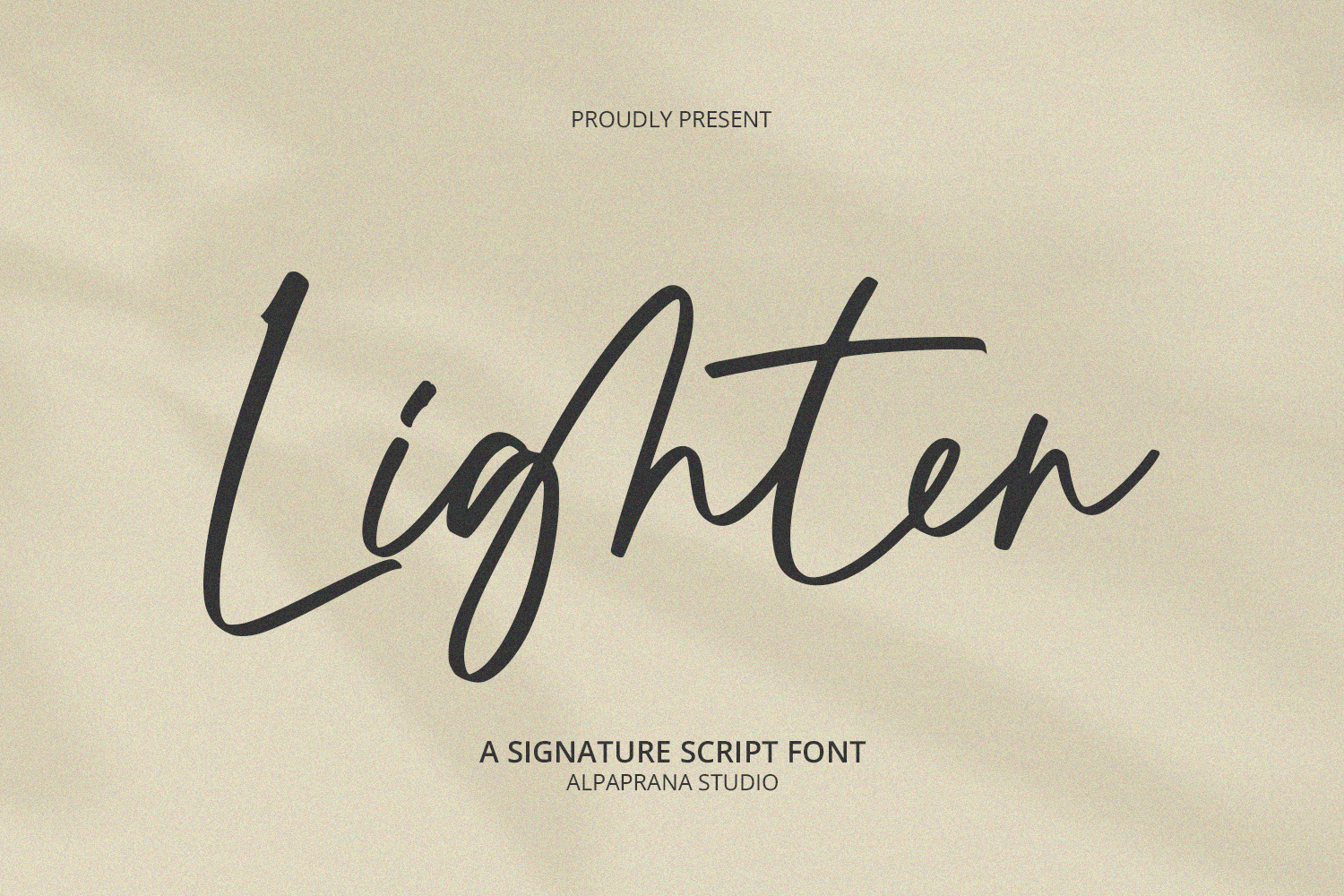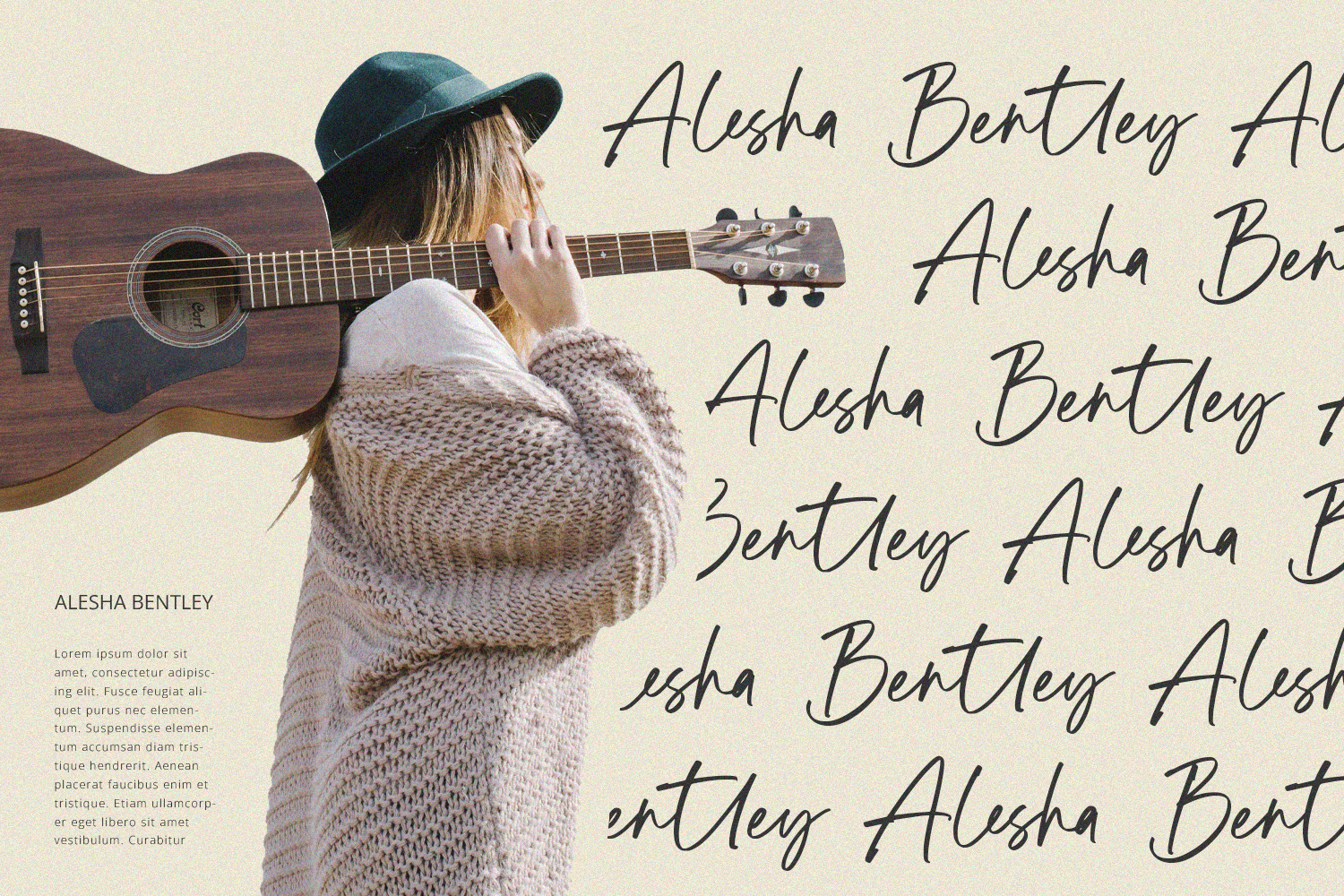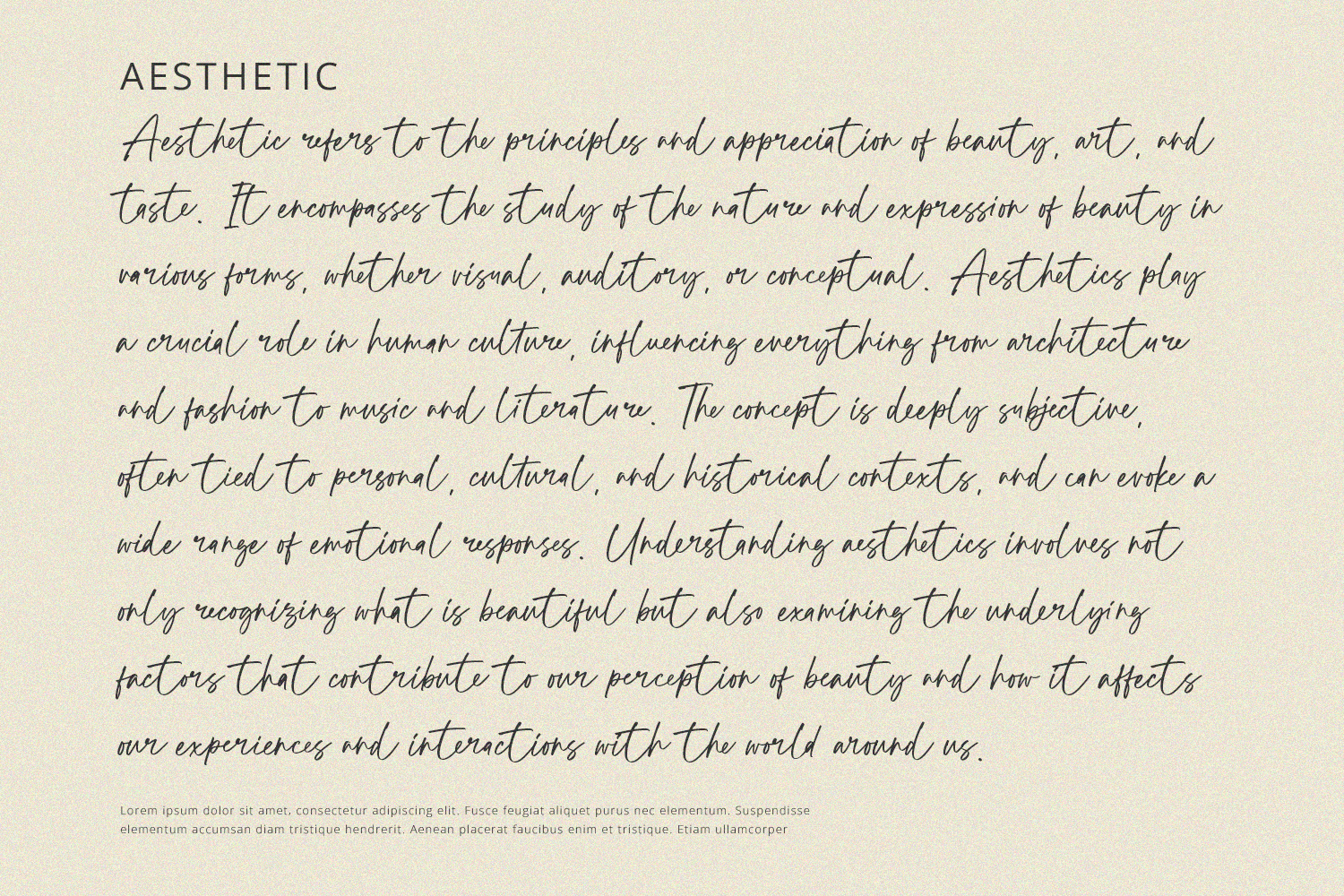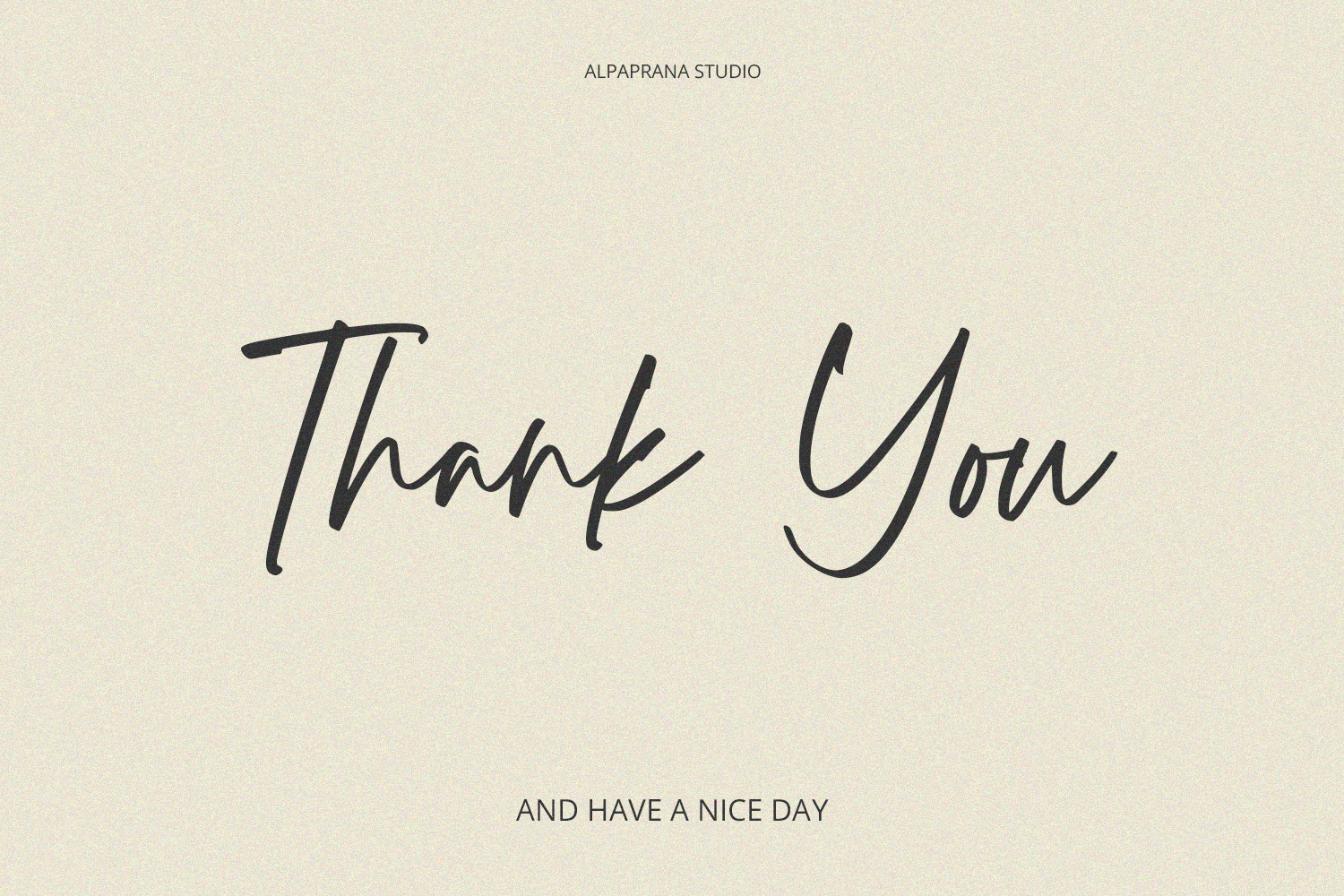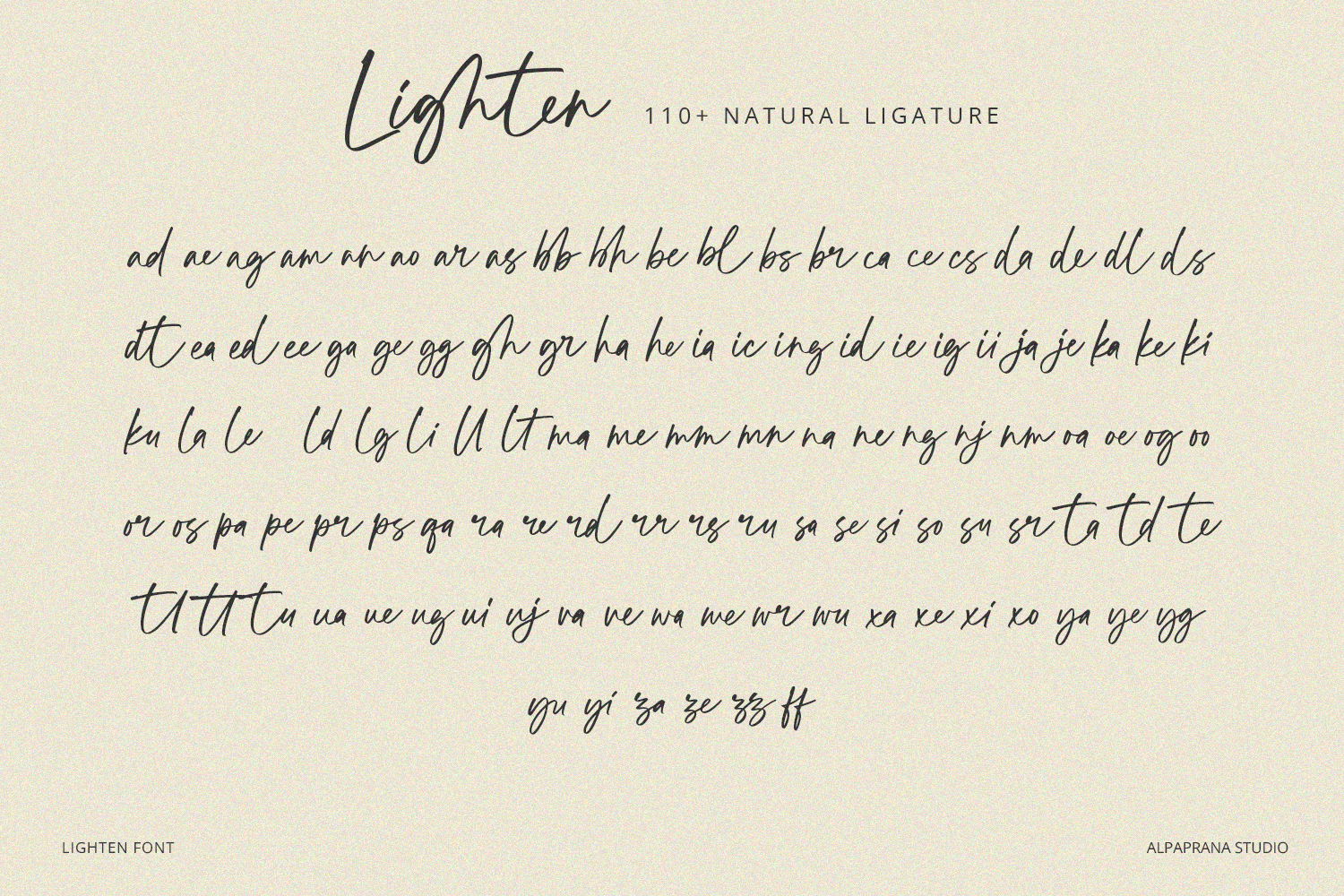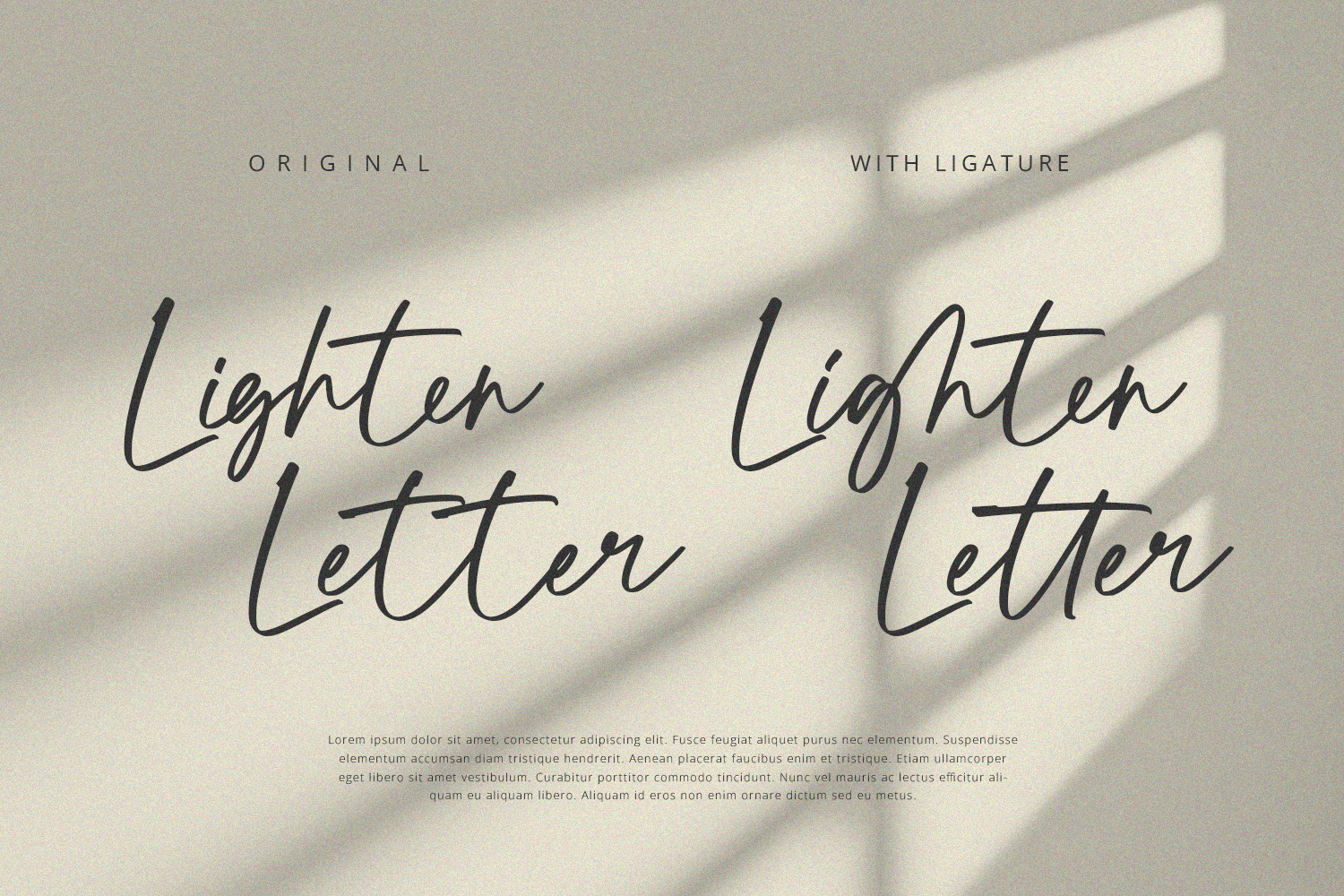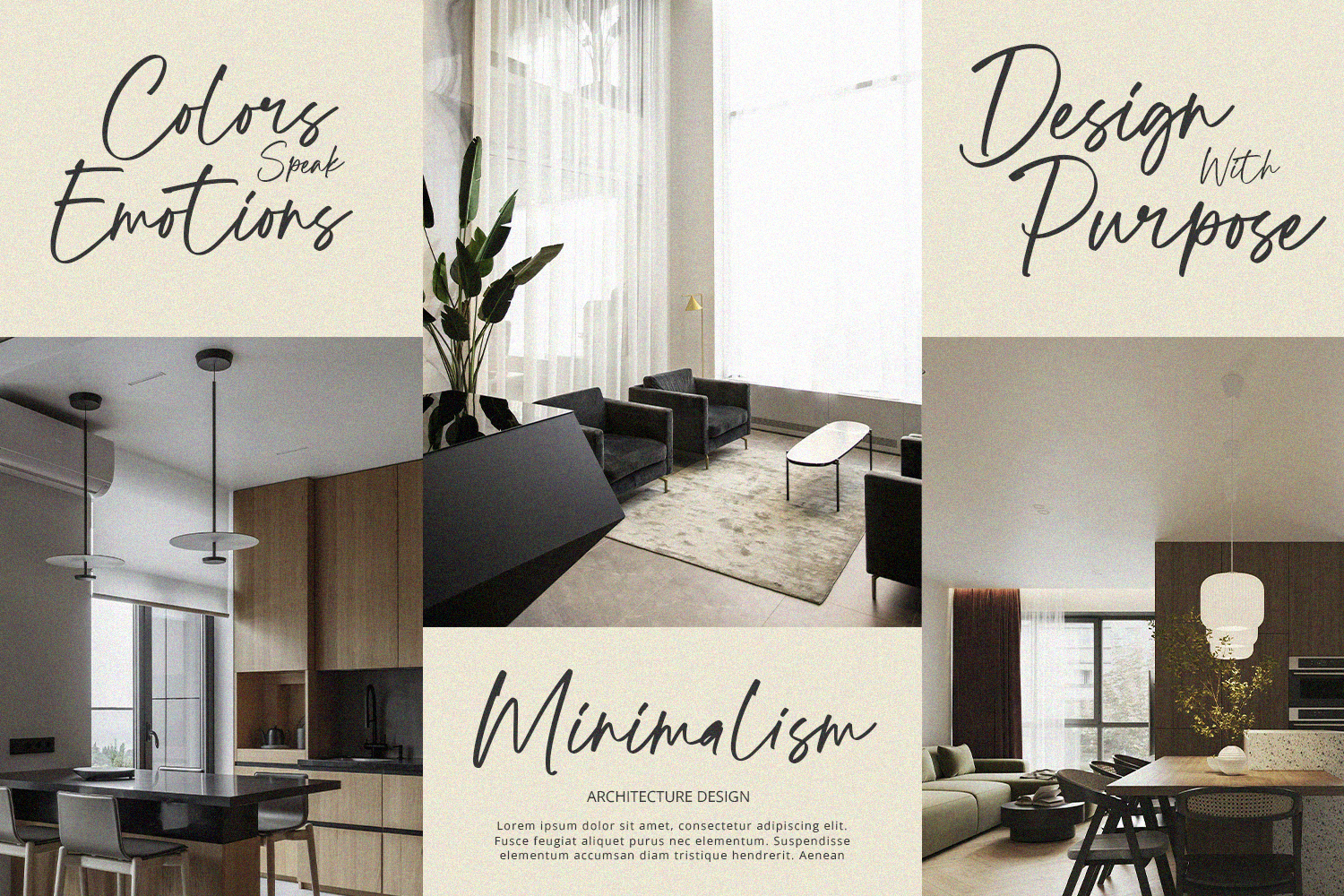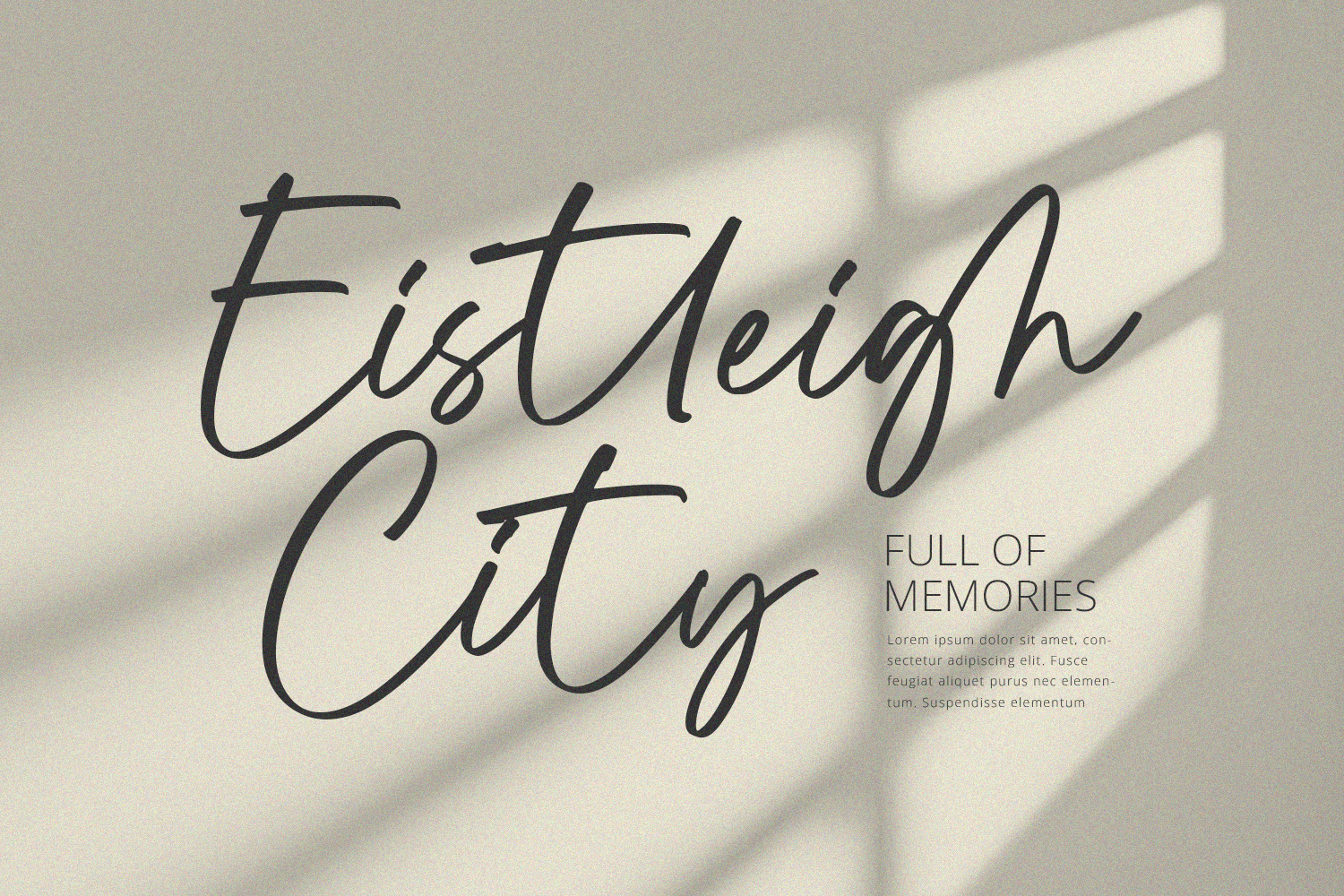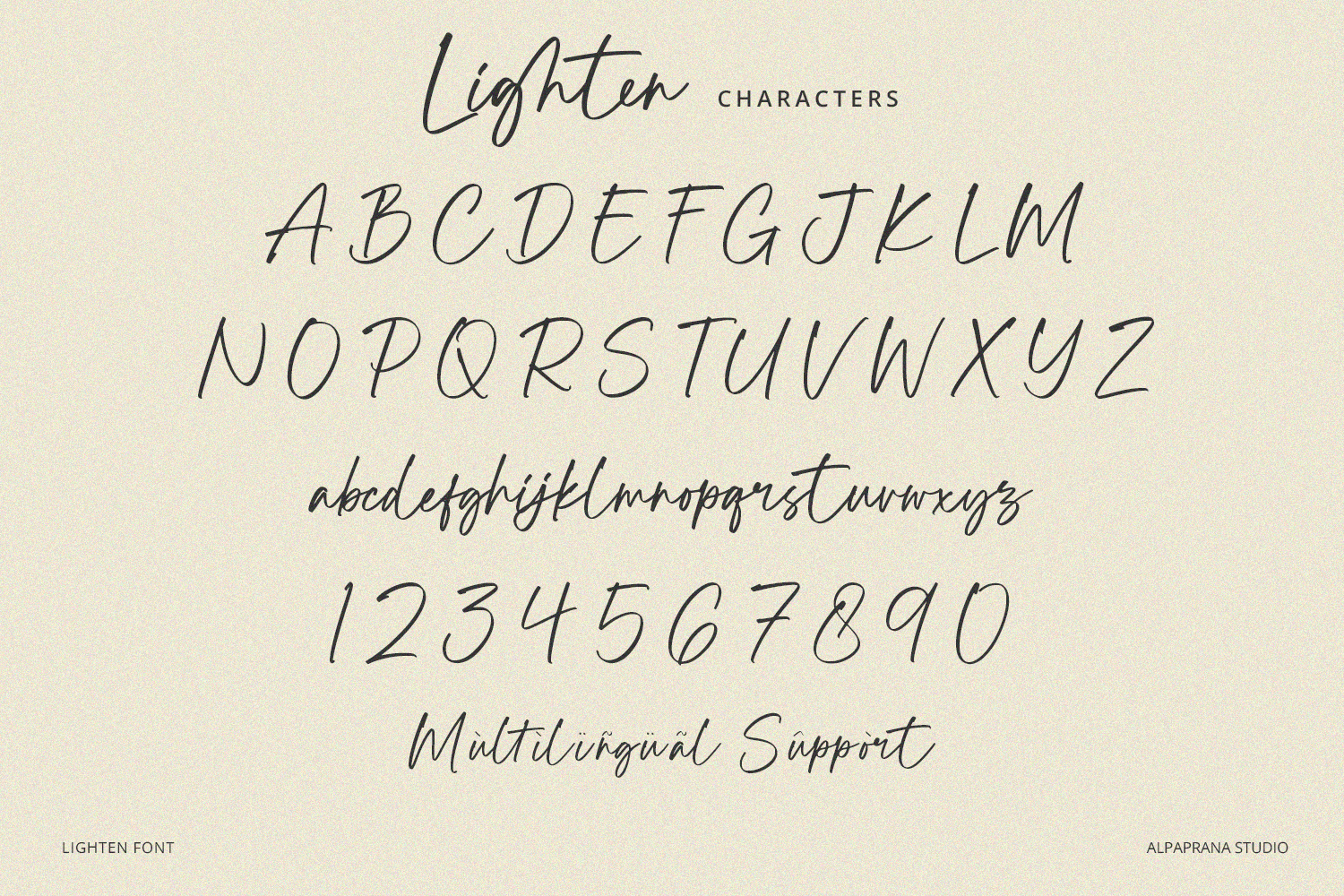
Lighten - Handwritten Script Font
Lighten is a handwritten script font with chic and modern feels. It will be perfectly used for Branding, Logo Design, Lettering, Logotype, Clothing, Poster, magazine, packaging, posters, shopping bags, t-shirts, book covers, photography, special events and other design project.
Features :
- Uppercase & Lowercase
- Numerals
- Punctuations (OpenType Standard)
- Accents (Multilingual Characters)
- Ligatures and Alternative Style Stylistic Set